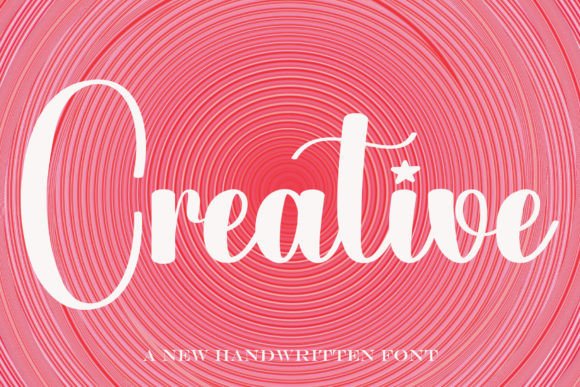
Immerse yourself in the world of creativity with Creative Font, the ultimate script font that captures the essence of artistic expression. Unleash your inner artist and let your imagination run wild as you explore the limitless possibilities of this font.
Crafted with meticulous attention to detail, Creative Font exudes elegance and sophistication. Its fine lines and graceful curves dance across the page, evoking a sense of wonder and enchantment. Experience the joy of creating captivating logos, stunning posters, heartfelt invitations, and any design project that demands a touch of individuality.
With Creative Font, you possess the power to transform ordinary words into extraordinary works of art. Its timeless style transcends trends and seasons, making it the perfect choice for any creative endeavor. Whether you're a seasoned designer or just starting your journey, Creative Font will elevate your designs to new heights.
But there's more to Creative Font than meets the eye. It's not just a font; it's an invitation to express yourself. Pour your heart and soul into every project, knowing that Creative Font will faithfully capture the essence of your message. Your designs will resonate with your audience, leaving a lasting impression that will ignite their imaginations.
With Creative Font, you'll discover a world of endless possibilities. Its versatility extends across a vast spectrum of design applications, from branding and marketing to social media and web design. Unleash your creativity and explore uncharted territories, knowing that Creative Font will be your trusted companion every step of the way.
Don't settle for ordinary fonts. Embrace the extraordinary with Creative Font, the script font that will transform your designs into masterpieces. Experience the joy of creating effortlessly, knowing that you have the perfect tool to bring your vision to life.